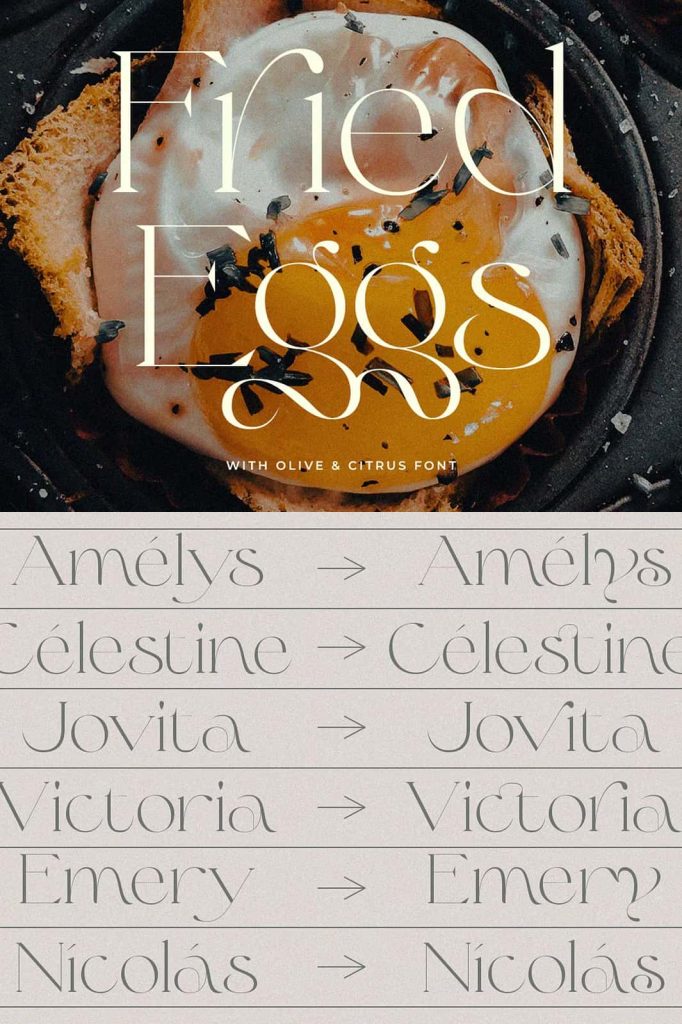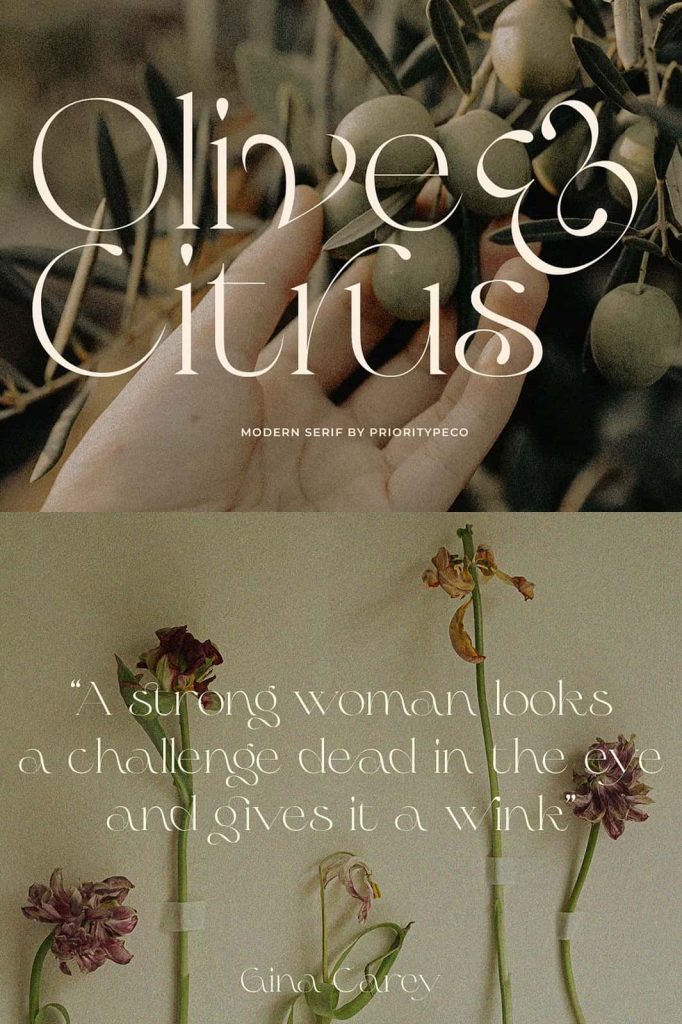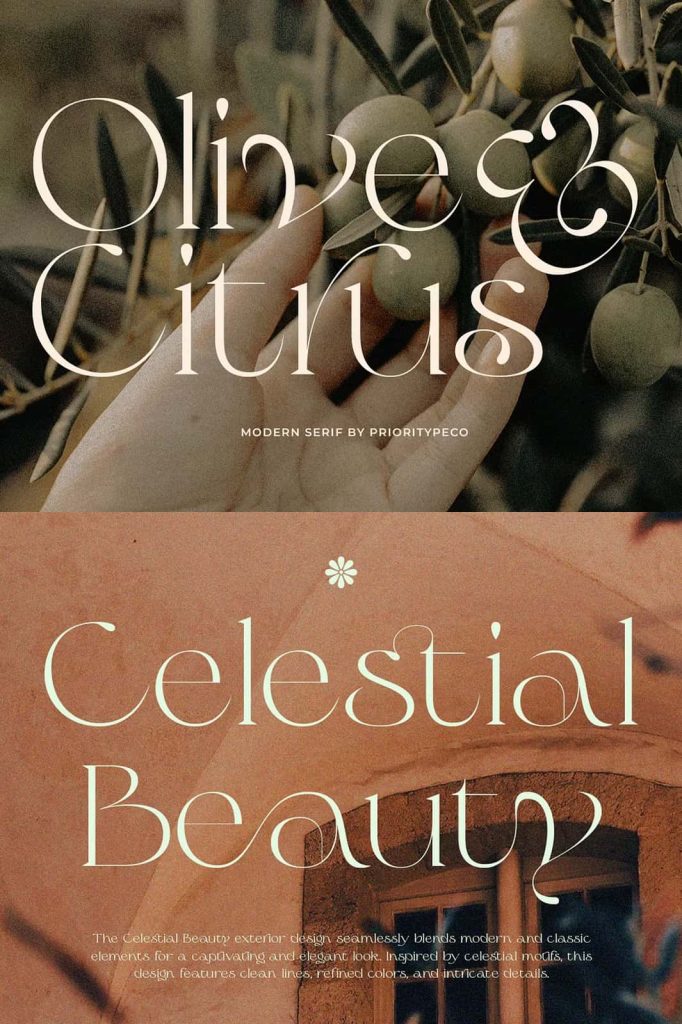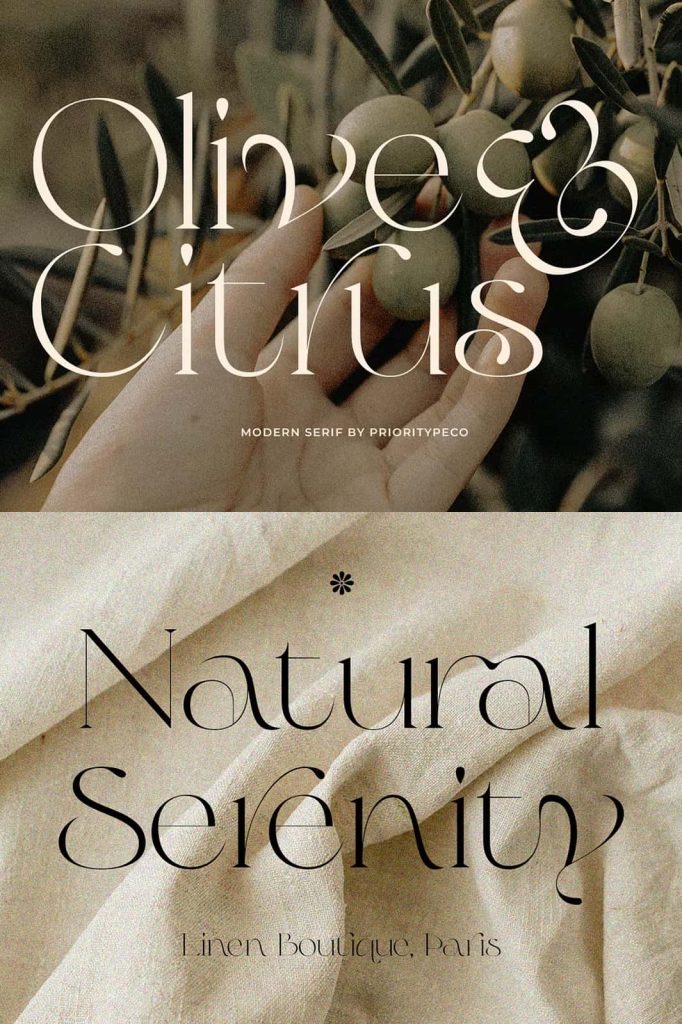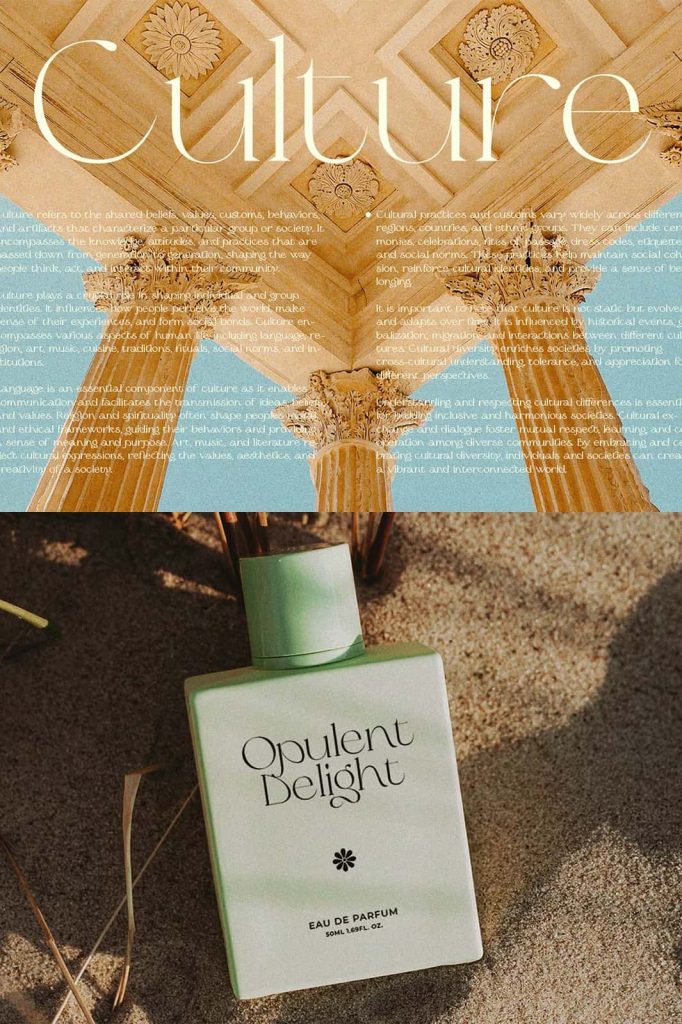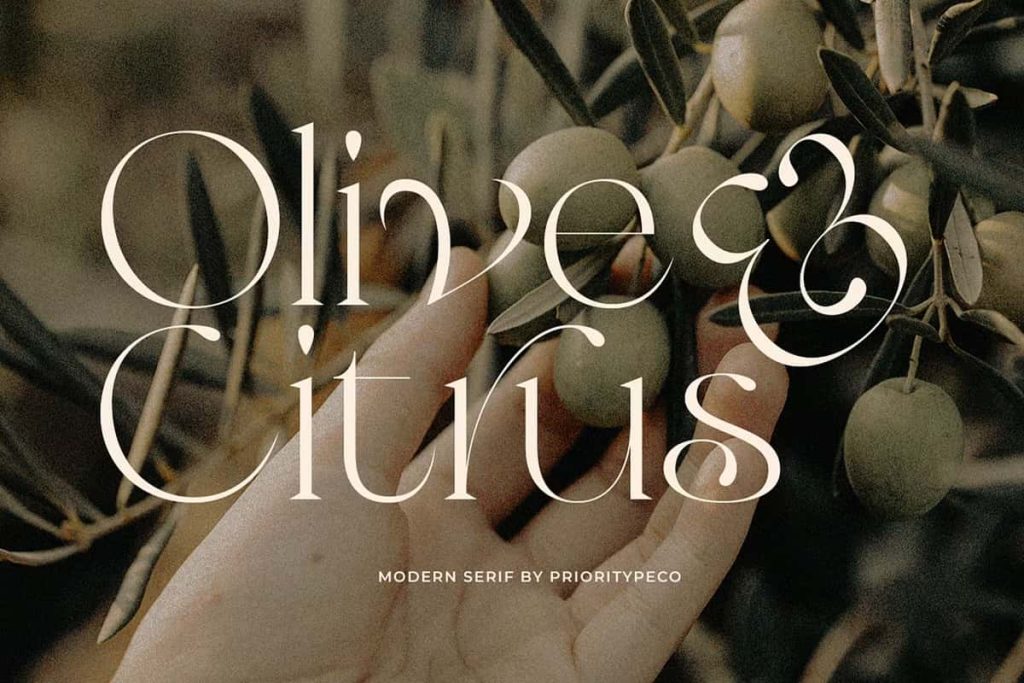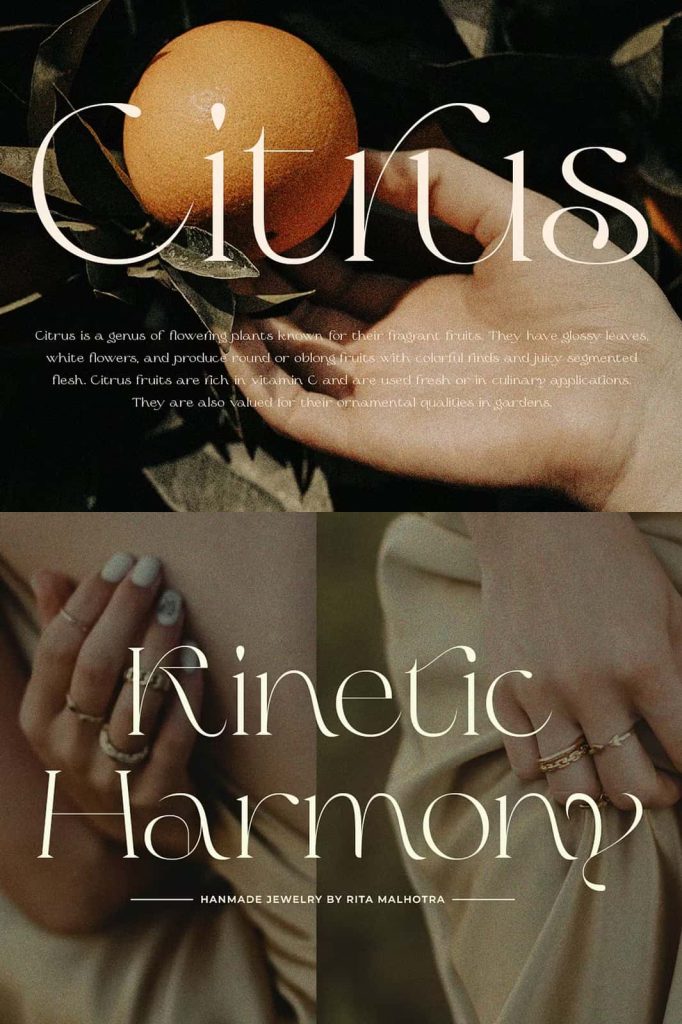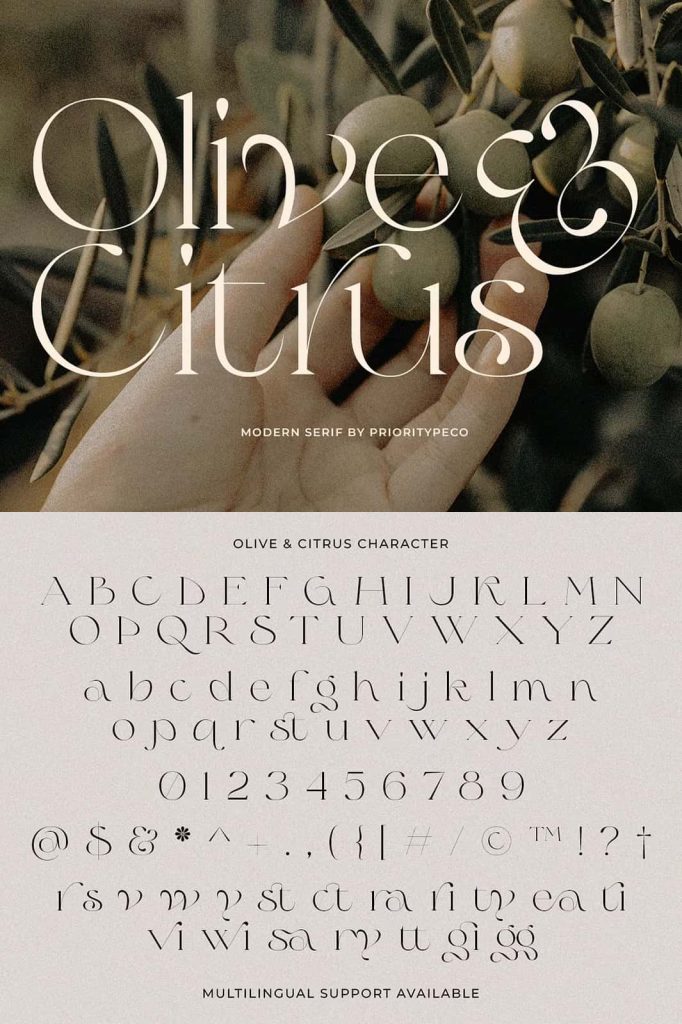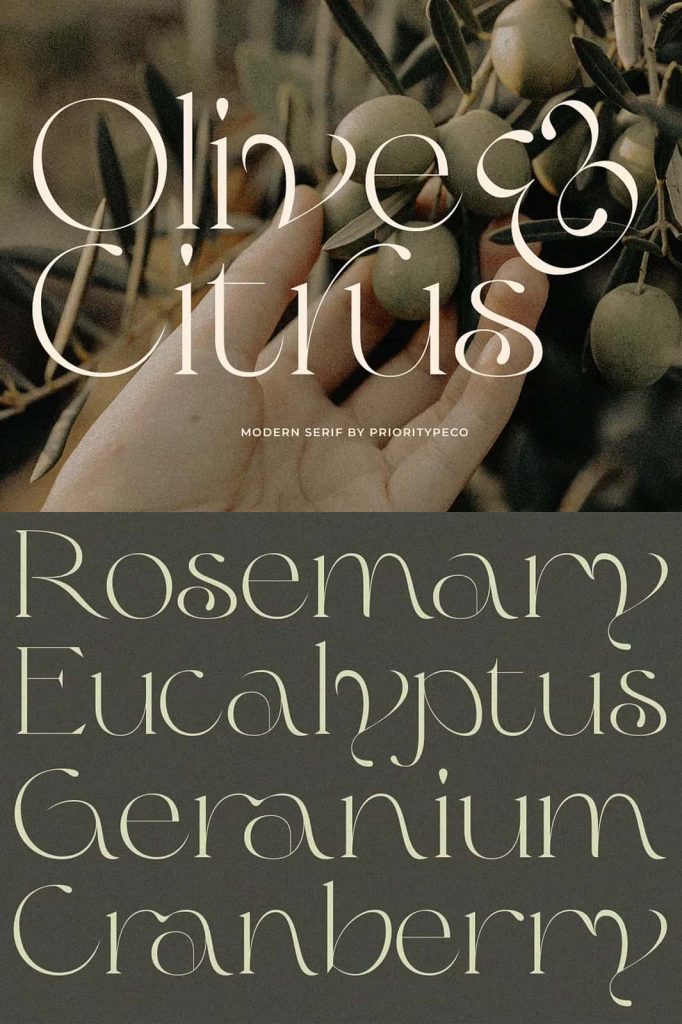
Olive & Citrus Serif Typeface – A Modern and Elegant Font for Premium Design Projects
Olive & Citrus is a beautifully crafted serif typeface that blends modern aesthetics with timeless elegance. Designed for creative professionals, brands, and businesses that want to communicate sophistication and style, this typeface offers a refined visual presence that instantly elevates any design project. Its balanced letterforms, graceful curves, and classic serif details create a professional appearance while maintaining a contemporary feel.
Whether you are building a luxury brand identity, creating eye-catching magazine layouts, designing stylish social media content, or developing premium marketing materials, Olive & Citrus delivers versatility and visual impact. The typeface helps designers establish a strong brand voice while maintaining readability and elegance across multiple platforms and applications.
Modern Serif Typeface with Timeless Appeal
Olive & Citrus combines the beauty of traditional serif typography with modern design principles. This unique combination allows the font to adapt seamlessly to both classic and contemporary design styles. The carefully designed characters provide a polished look that works exceptionally well for businesses, fashion brands, lifestyle products, luxury services, and creative agencies.
Its elegant structure makes every word appear refined and professional. Designers can use this typeface to create memorable visual identities that leave a lasting impression on audiences. The font’s stylish appearance adds depth and character to headlines, logos, packaging, and editorial designs.
Perfect for Branding and Logo Design
Strong typography plays a crucial role in successful branding, and Olive & Citrus provides the sophistication needed for high-end visual identities. The font helps businesses create distinctive logos that communicate trust, quality, and professionalism. Its elegant serif styling enhances brand recognition while supporting a premium and luxurious image.
Whether you are designing for a boutique fashion label, beauty brand, luxury hotel, jewelry company, or creative studio, Olive & Citrus offers the flexibility to match a wide range of branding concepts. The font’s balanced proportions and stylish details help create logos that remain visually appealing across print and digital media.
Key Branding Applications
- Luxury brand identities
- Professional logo design
- Product packaging
- Business cards and stationery
- Marketing campaigns
- Corporate presentations
- Website headers and banners
Ideal for Magazines and Editorial Layouts
Editorial designers often seek typography that combines readability with visual sophistication. Olive & Citrus fulfills both requirements by offering elegant letterforms that enhance the reading experience while maintaining a premium appearance. The font works exceptionally well for magazine covers, article headlines, editorial spreads, and publishing projects.
Its refined style allows designers to create visually engaging layouts that capture attention without overwhelming content. From fashion magazines to lifestyle publications and luxury catalogs, Olive & Citrus provides the professional quality needed for modern editorial design.
Create Stunning Social Media Content
In today’s digital landscape, visually appealing content is essential for attracting engagement. Olive & Citrus helps designers produce sophisticated social media graphics that stand out across platforms such as Instagram, Facebook, Pinterest, and LinkedIn. Its elegant appearance makes it perfect for promotional posts, inspirational quotes, product launches, and brand announcements.
The font’s modern yet classic personality allows content creators to maintain a consistent visual identity while delivering attractive and memorable messaging. This versatility makes Olive & Citrus an excellent choice for businesses seeking a polished and professional online presence.
Versatile Typeface for Creative Projects
Beyond branding and editorial applications, Olive & Citrus adapts beautifully to a variety of creative projects. Designers can use it for invitations, packaging, advertising materials, website design, book covers, brochures, posters, and digital presentations. Its elegant structure provides endless opportunities for creating high-quality visual experiences.
The typeface performs well in both large display settings and supporting design elements, allowing creative professionals to maintain consistency throughout their projects. This flexibility makes Olive & Citrus a valuable addition to any designer’s font collection.
Why Choose Olive & Citrus?
Olive & Citrus stands out because it successfully merges classic serif elegance with modern design sensibilities. It delivers a sophisticated visual style that enhances branding, publishing, advertising, and digital content creation. Designers can confidently use this typeface to build premium experiences that communicate quality, creativity, and professionalism.
If you are looking for a modern serif typeface that offers elegance, versatility, and timeless appeal, Olive & Citrus is an excellent choice. Its refined character and stylish appearance make it suitable for a wide range of design applications, helping your projects achieve a polished and memorable look.